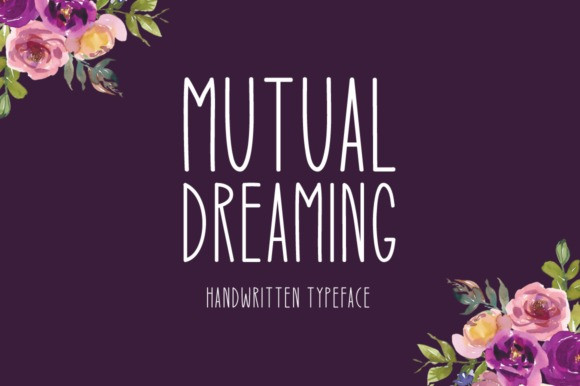
Mutual Dreaming Display Font
Mutual Dreaming is a brand new display font. This is a sweet, soft hand-lettered font style.
The playful rounded characters make it the perfect font for creating stunning logos, posters, cover art and everything else you can think of.